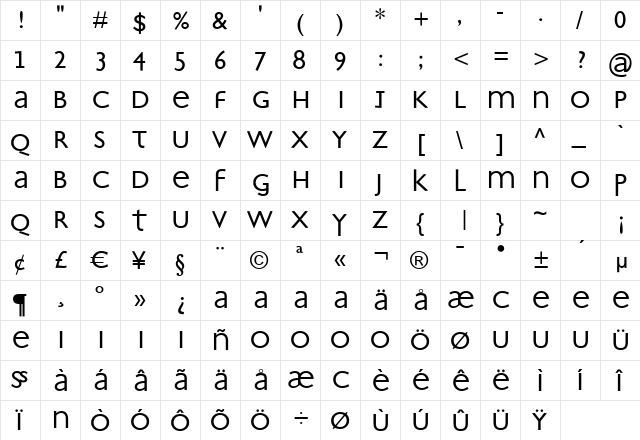
Artist Regular
Design Context for Artist Typeface
Artist offers clean, dependable letterforms without strong stylistic allegiance, making it a practical choice for designers who need flexibility.
Pro Tip: Pair Artist with a font of contrasting weight or personality to build a more expressive typographic hierarchy.